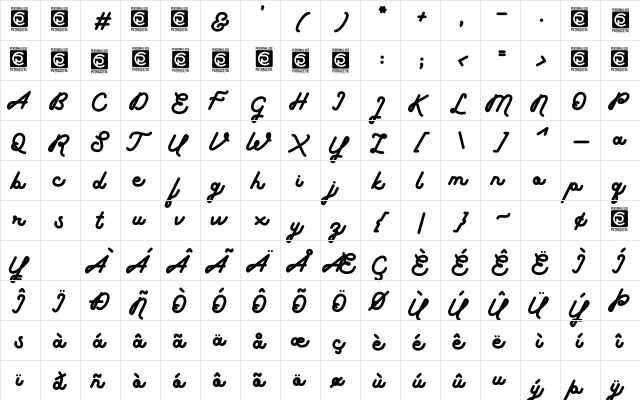
Boldline Free Version Regular
| Foundry | Putracetol Studio |
| Designer | Putra Novembria Candra Kusuma |
Design Context for Boldline Free Version Typeface
Boldline Free Version is a composed and adaptable typeface that performs quietly and consistently across a wide range of design contexts. Its bold stroke weight gives it real presence on the page.